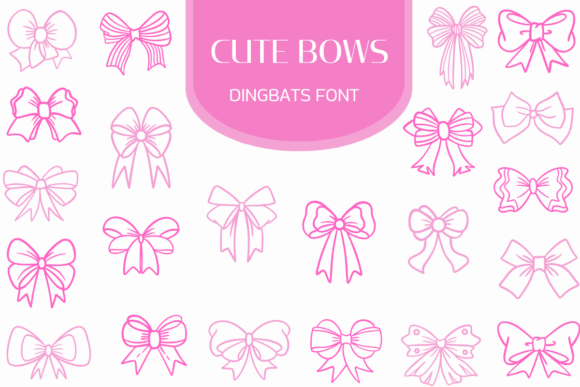
Crafting a Perfect Design: Where Cute Bows Font Comes In
Have you ever stared at a blank canvas, trying to find the perfect balance of style and personality? You know, that moment when everything seems to be missing a certain je ne sais quoi? For designers, this is a common conundrum. But what if you could infuse your designs with a dash of whimsy and elegance, all with the click of a button?
Enter Cute Bows Font, a charming dingbats typeface designed to add a playful touch to any project. With its beautifully illustrated bow silhouettes, this font transforms characters into stylish icons that work perfectly for branding, packaging, and digital designs. Whether you’re a seasoned designer or a creative enthusiast, Cute Bows Font is a must-have addition to your font library.
• Unique Characteristics: The Cute Bows Font features adorable, hand-drawn bow designs that add a playful touch to any text. The font includes a range of bow styles, from simple to intricate, allowing users to customize their designs.
Cute Bows Font Review
Overall, I think the Cute Bows Font is a lovely addition to any designer’s toolkit. Here’s what works well:
• ✨ It’s perfect for adding a touch of whimsy and playfulness to your designs, especially for projects targeting a younger audience or those with a feminine theme.
• ✨ The font is highly customizable, allowing you to adjust the color, size, and spacing to fit your design needs.
• ✨ The Cute Bows Font is also great for creating eye-catching headlines, titles, and text overlays.
However, there are some limitations to keep in mind:
• ⚠️ The font may not be suitable for professional or formal designs, as it can come across as too playful or immature.
• ⚠️ The font’s design can be a bit too bold or overpowering if used extensively throughout the design.
• ⚠️ Some users may find the font a bit difficult to read in smaller sizes or at certain distances.
Overall, I think the Cute Bows Font is a great choice for designers looking to add a touch of personality to their projects. Just be mindful of its limitations and use it sparingly to avoid overwhelming the design.
Getting the Most Out of Cute Bows Font
To get the most out of Cute Bows Font, try the following tips:
• Use it for titles, headings, and other attention-grabbing text.
• Combine it with other fonts for a unique and playful look.
• Experiment with different font sizes and colors to create visual interest.
Cute Bows Font is perfect for:
• Wedding invitations and decorations.
• Children’s birthday party invitations and